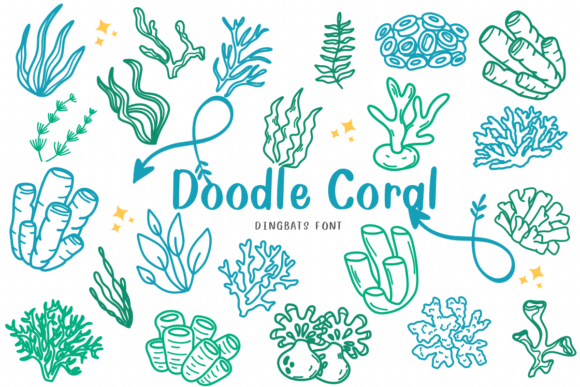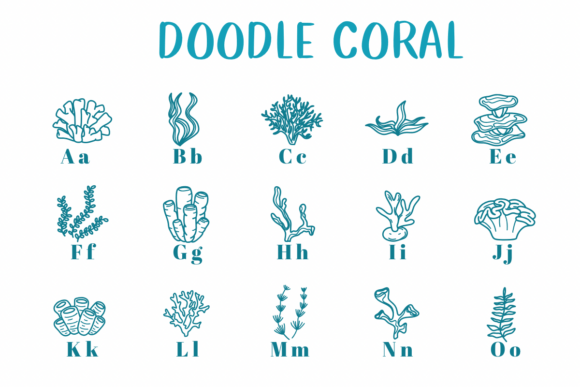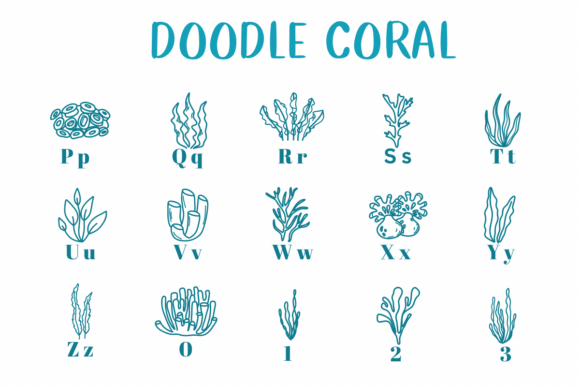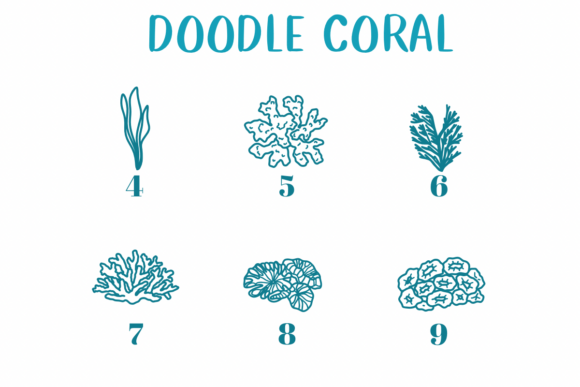
Doodle Coral Font
About the Doodle Coral Font
Let us introduce you to Doodle Coral Font, where timeless design meets modern craftsmanship. Doodle Coral is a dingbats font with an aquatic theme. This font can enhance your creative projects such as wedding invitations, DIY, crafts, decorations, logos, and many other creative ideas.
Doodle Coral’s playful, hand-drawn aesthetic makes it ideal for projects requiring a lighthearted and approachable feel. It excels in branding for children’s products, crafting businesses, or summer-themed events. Use it effectively in logos, short headlines, and decorative elements within larger designs. However, its informal nature makes it unsuitable for body text or applications requiring high readability, such as websites or user interfaces.
Pairing Doodle Coral with a clean sans-serif like Open Sans for body copy provides a strong contrast, balancing the font’s whimsicality with professional clarity. Alternatively, a classic serif such as Garamond could add a touch of sophistication to projects where a more balanced approach is needed.
The overall personality is best described as friendly and approachable, conveying a sense of summery fun and handmade charm. Avoid using it in contexts requiring seriousness or formality.
Doodle Coral Font Usage Examples
Doodle Coral Font Example